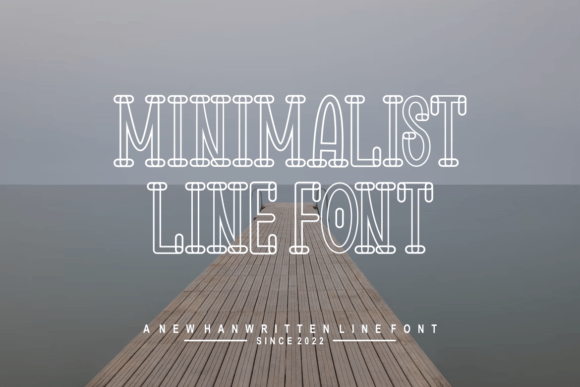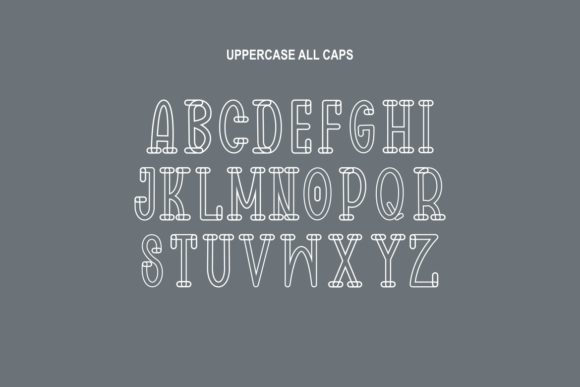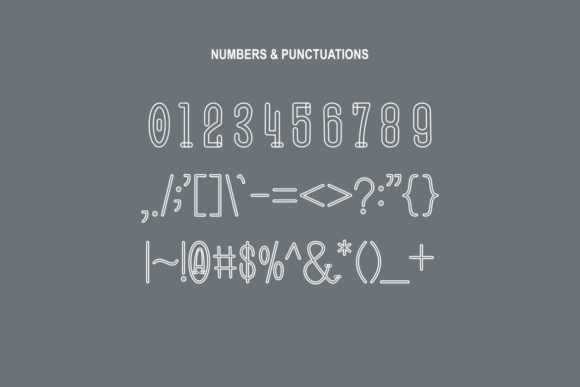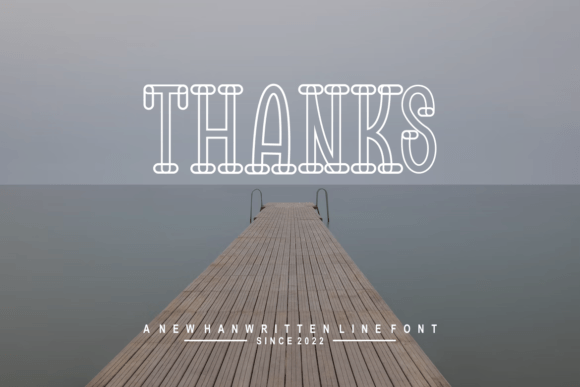
Elipline Font: The Ultimate Modern Display Font for Designers and Crafters
Are you tired of using the same old fonts in your designs? Look no further than Elipline Font, a cool and modern display font that’s perfect for making a statement. With its sleek lines and versatile style, Elipline is suitable for a wide pool of design ideas, from bold headlines to elegant logos. In this article, we’ll dive into the world of Elipline Font and explore its features, benefits, and uses.
What is Elipline Font?
Elipline Font is a modern display font designed to make your designs stand out. Its clean and minimalist aesthetic makes it perfect for use in a variety of design projects, from posters and flyers to logos and branding materials. The font’s sleek lines and curves give it a sophisticated look that’s sure to impress.
Features of Elipline Font
Elipline Font has several features that make it a top choice for designers and crafters. Some of its key features include:
- Clean and Modern Design: Elipline Font has a clean and modern design that’s perfect for making a statement.
- Versatile Style: The font’s versatile style makes it suitable for use in a wide range of design projects.
- Elegant Lines and Curves: Elipline Font’s elegant lines and curves give it a sophisticated look that’s sure to impress.
- Easy to Read: Despite its modern design, Elipline Font is easy to read, even at small sizes.
Benefits of Using Elipline Font
There are several benefits to using Elipline Font in your designs. Some of the top benefits include:
- Instant Recognition: Elipline Font’s unique design makes it instantly recognizable, which can help your brand stand out.
- Professional Look: The font’s sleek lines and curves give it a professional look that’s perfect for use in business and marketing materials.
- Flexibility: Elipline Font is versatile enough to be used in a wide range of design projects, from posters and flyers to logos and branding materials.
- Easy to Pair: Elipline Font is easy to pair with other fonts, making it perfect for use in multi-font designs.
Uses of Elipline Font
Elipline Font is suitable for use in a wide range of design projects, including:
- Posters and Flyers: Elipline Font’s bold and modern design makes it perfect for use in posters and flyers.
- Logos and Branding Materials: The font’s sleek lines and curves make it a great choice for use in logos and branding materials.
- Business and Marketing Materials: Elipline Font’s professional look makes it perfect for use in business and marketing materials, such as brochures and presentations.
- Digital Media: Elipline Font is also suitable for use in digital media, such as social media graphics and website headers.
Tips for Using Elipline Font
Here are a few tips for using Elipline Font in your designs:
- Use it Boldly: Elipline Font is designed to make a statement, so don’t be afraid to use it boldly.
- Experiment with Colors: The font’s sleek lines and curves look great in a variety of colors, so experiment to find the perfect combination.
- Pair it with Other Fonts: Elipline Font is easy to pair with other fonts, so don’t be afraid to get creative.
Elipline Font is a cool and modern display font that’s perfect for making a statement. With its sleek lines and versatile style, it’s suitable for use in a wide range of design projects. Whether you’re a designer or crafter, Elipline Font is a great choice for anyone looking to add a touch of elegance and sophistication to their designs.